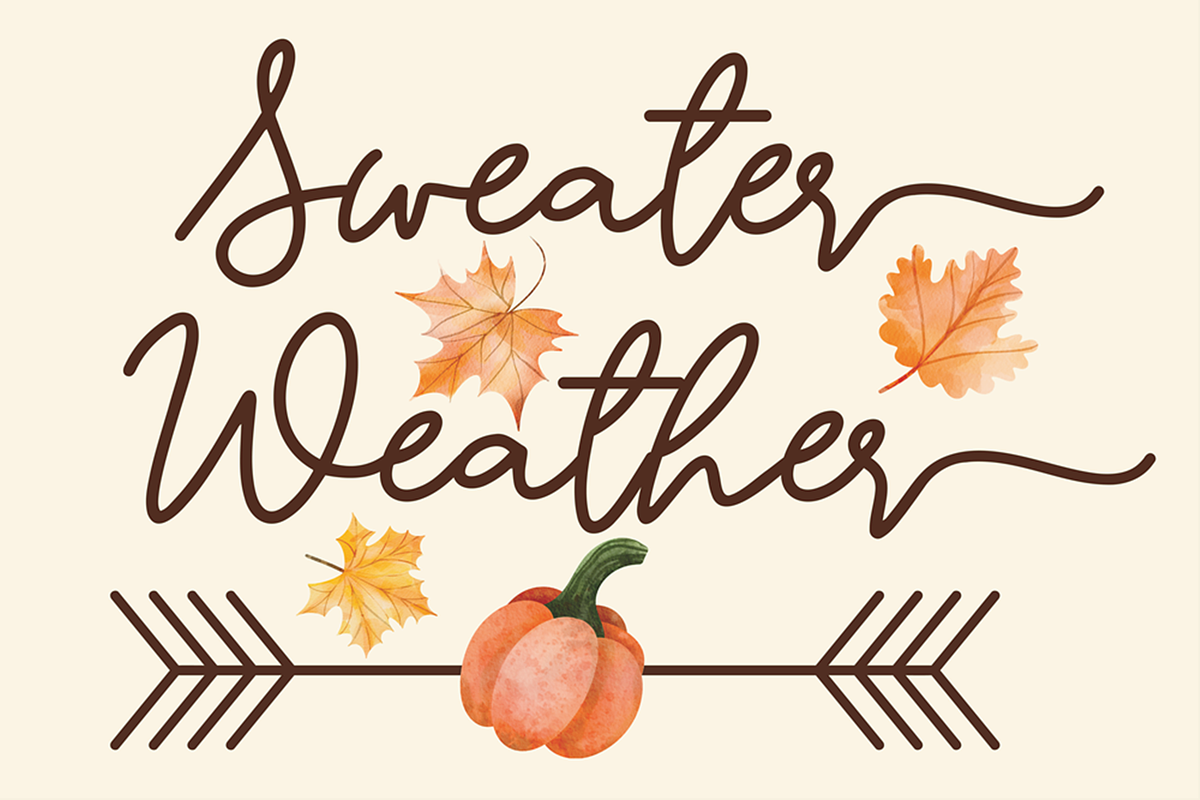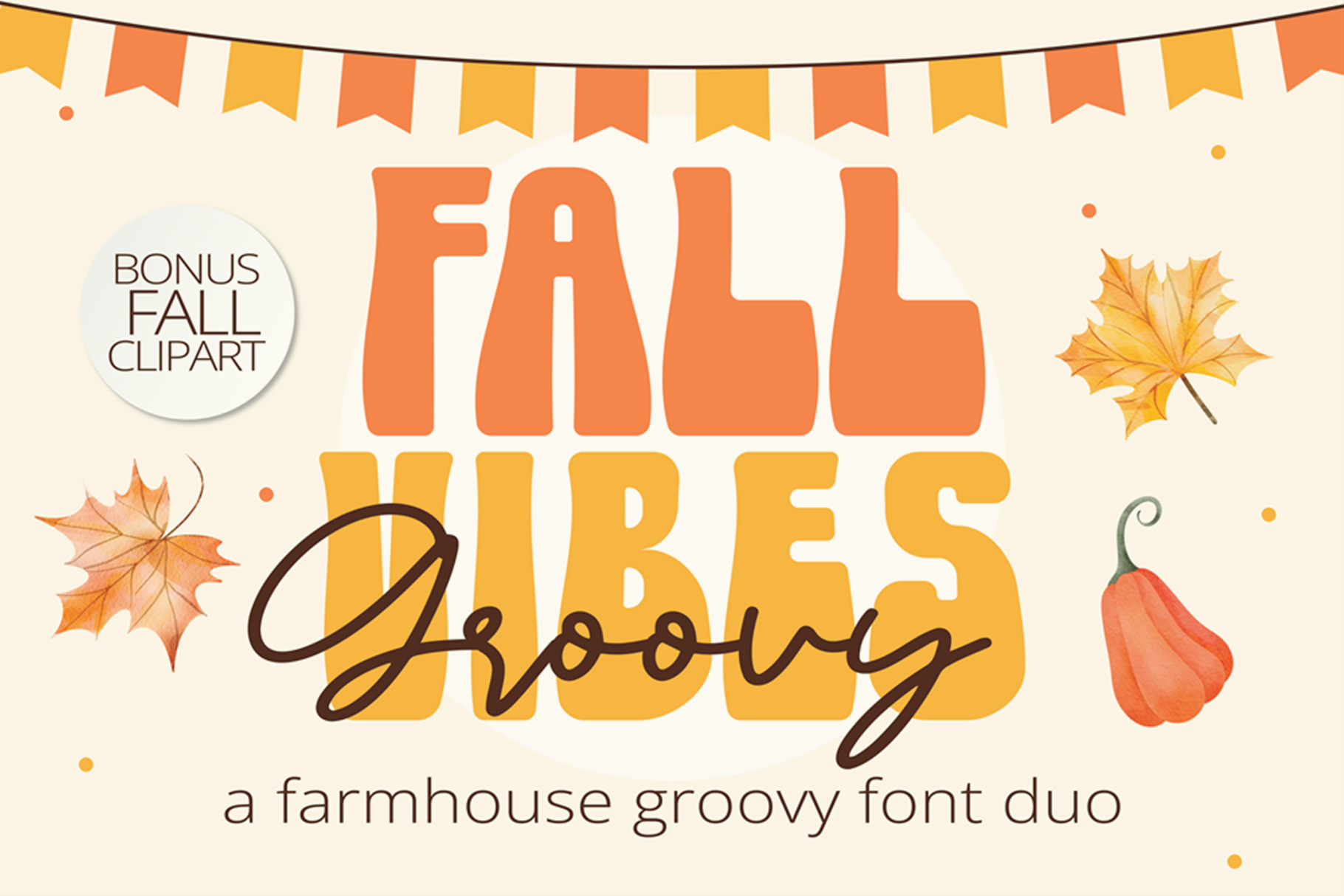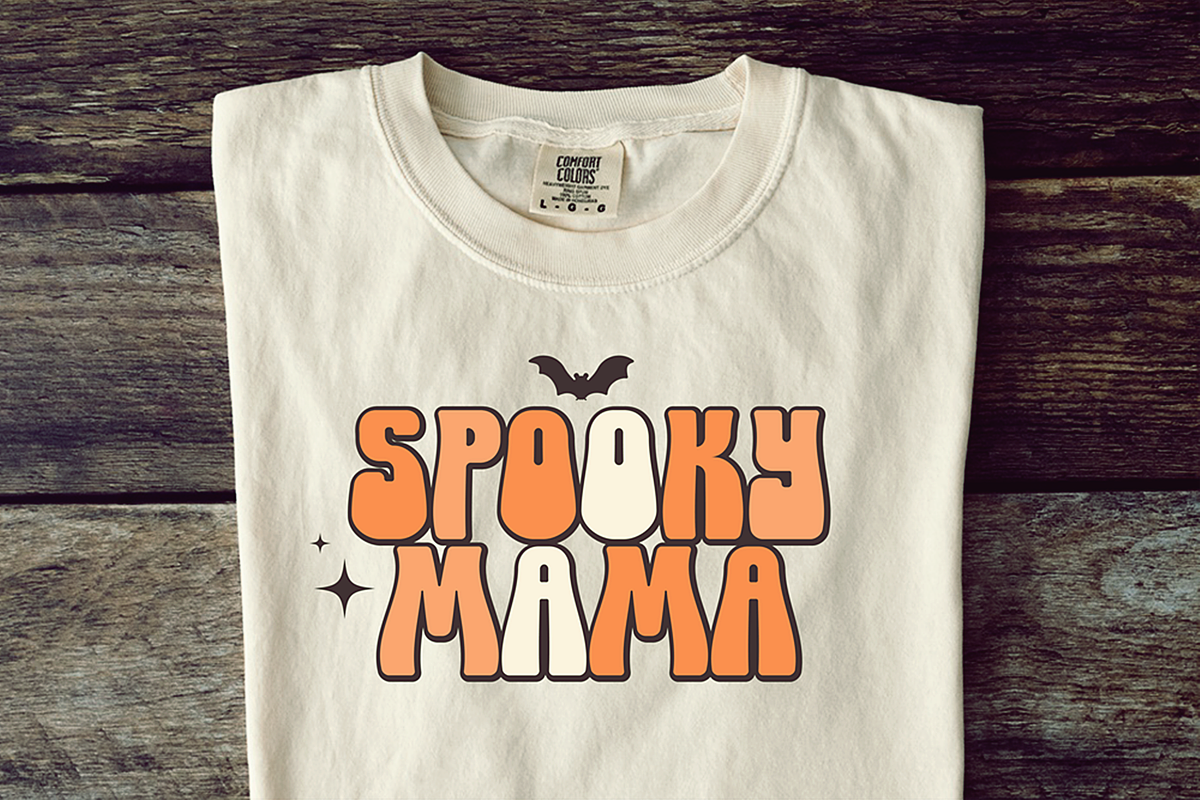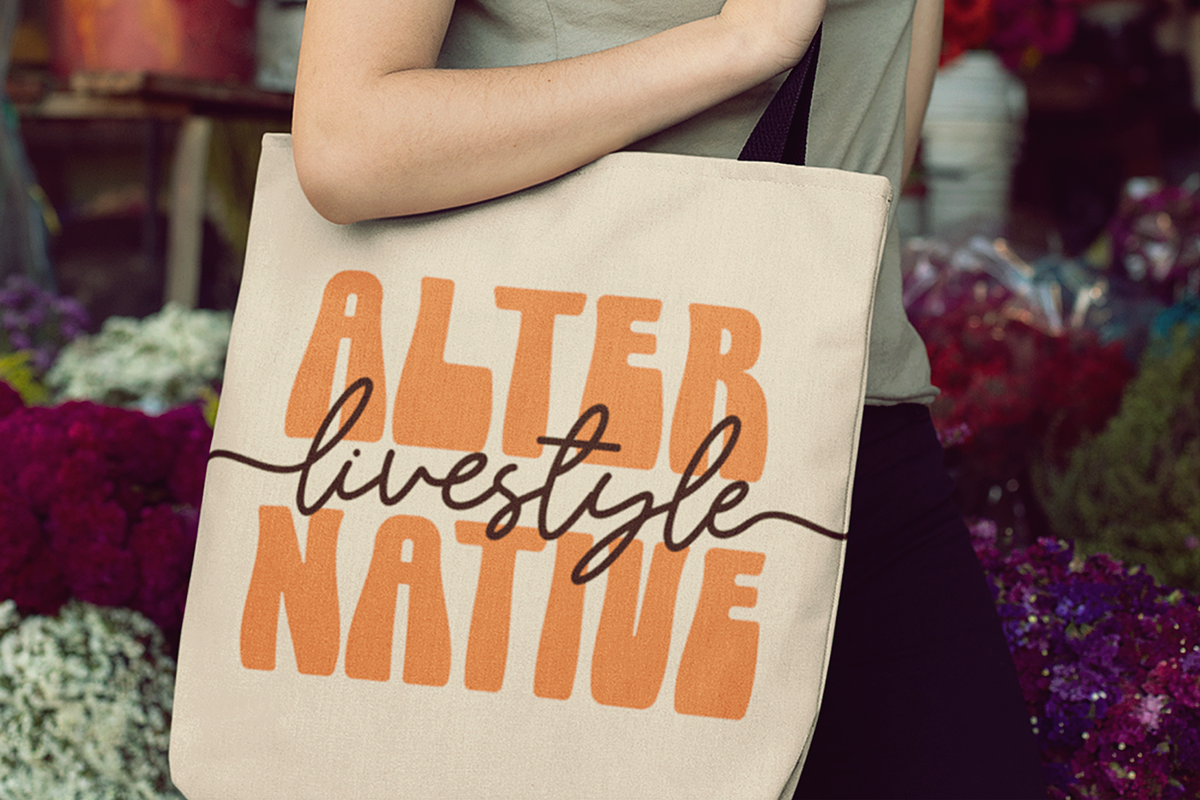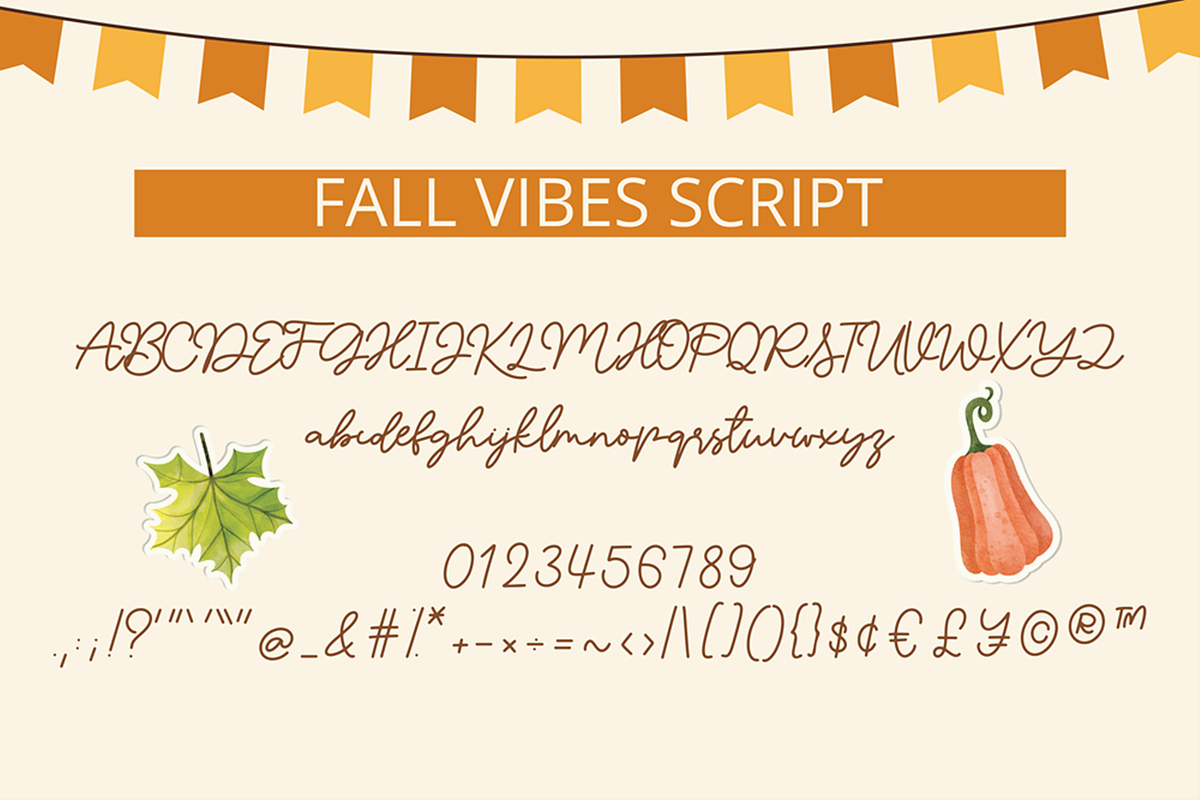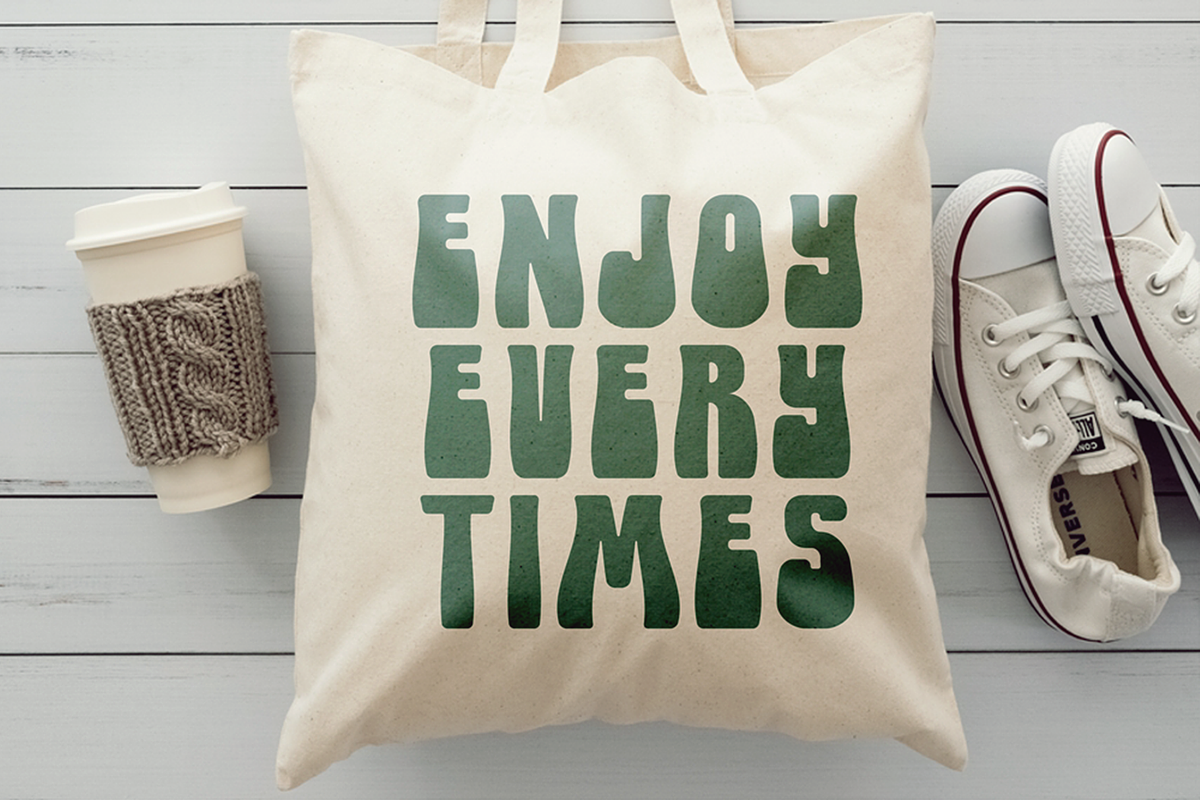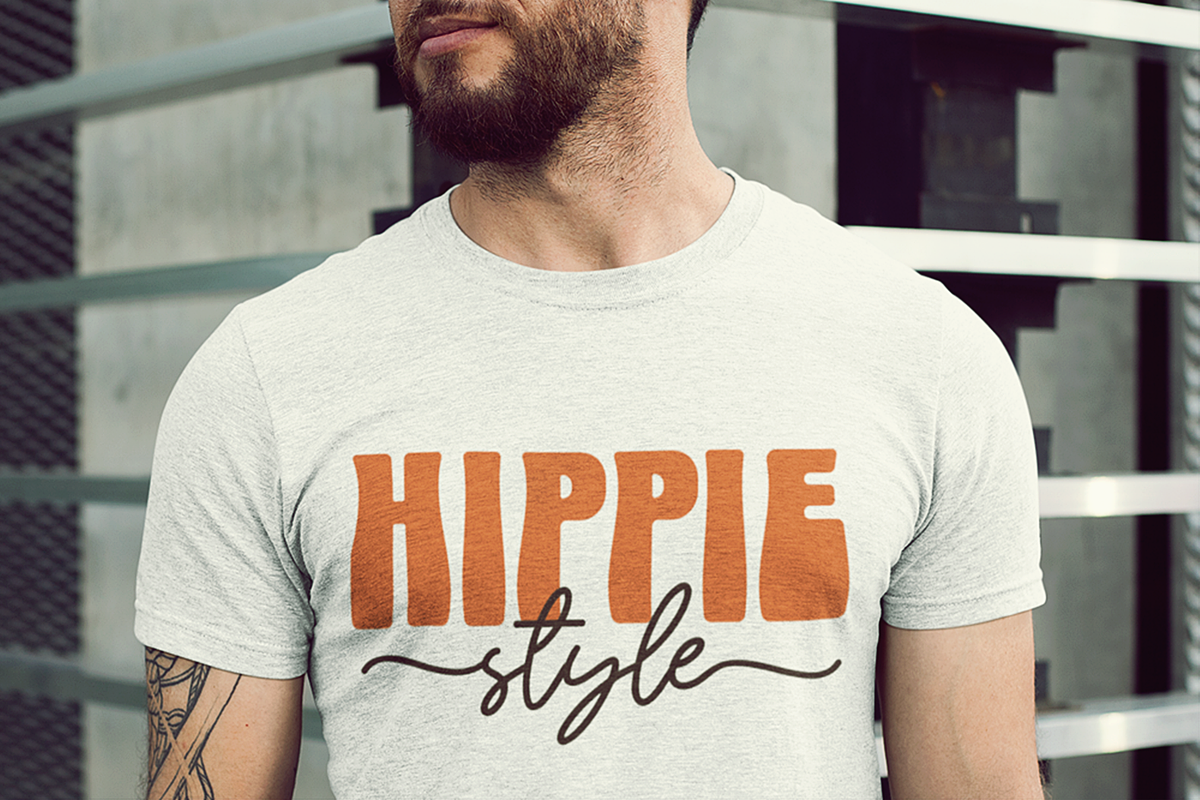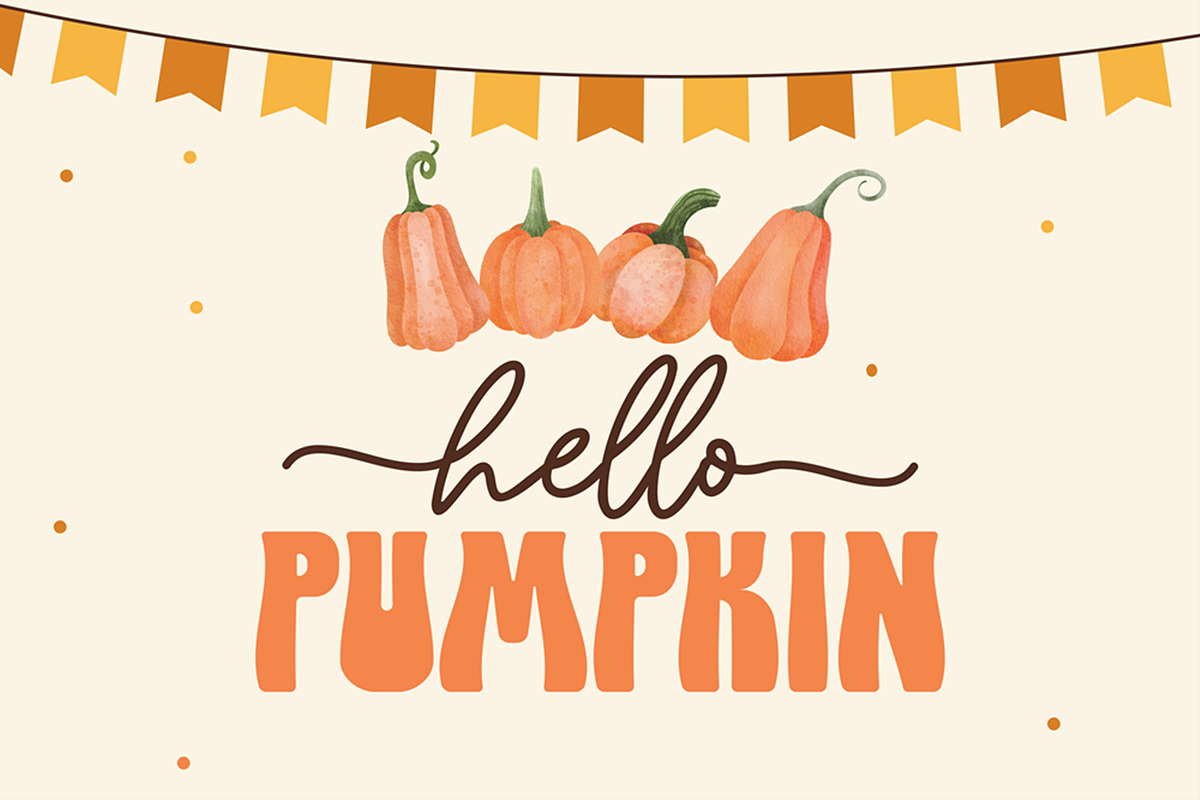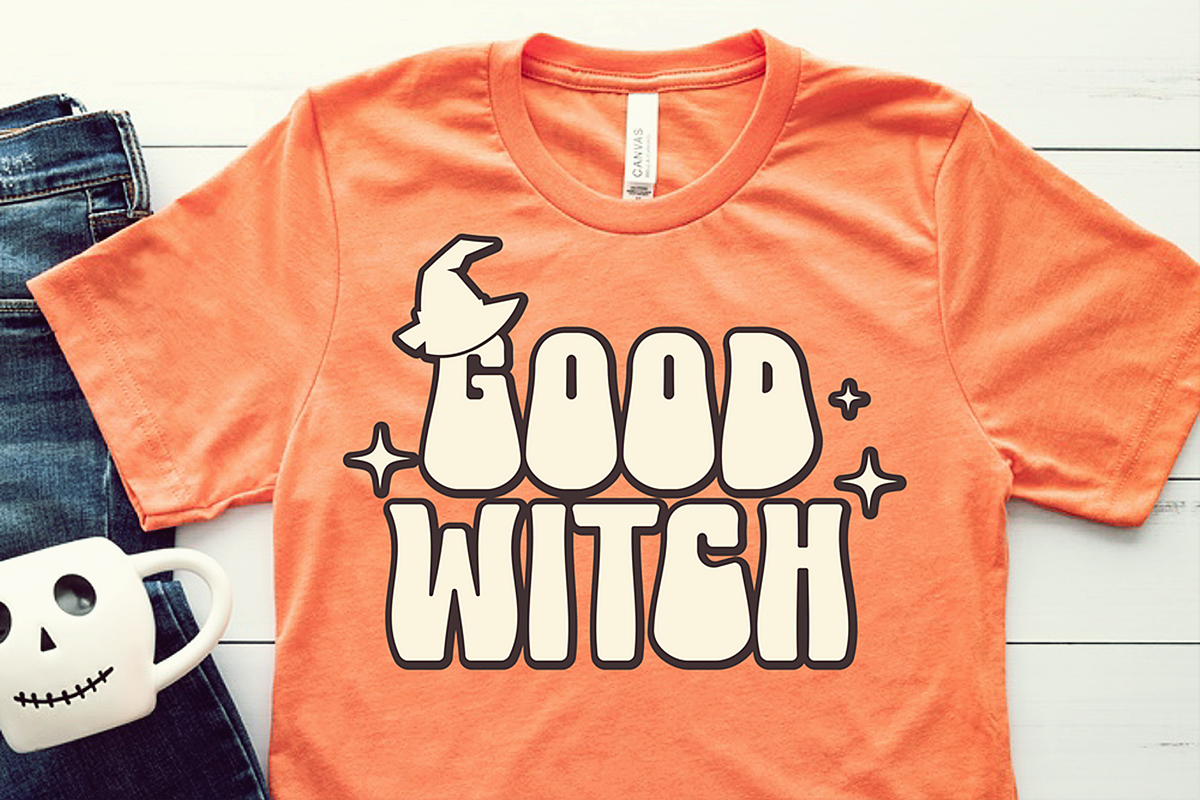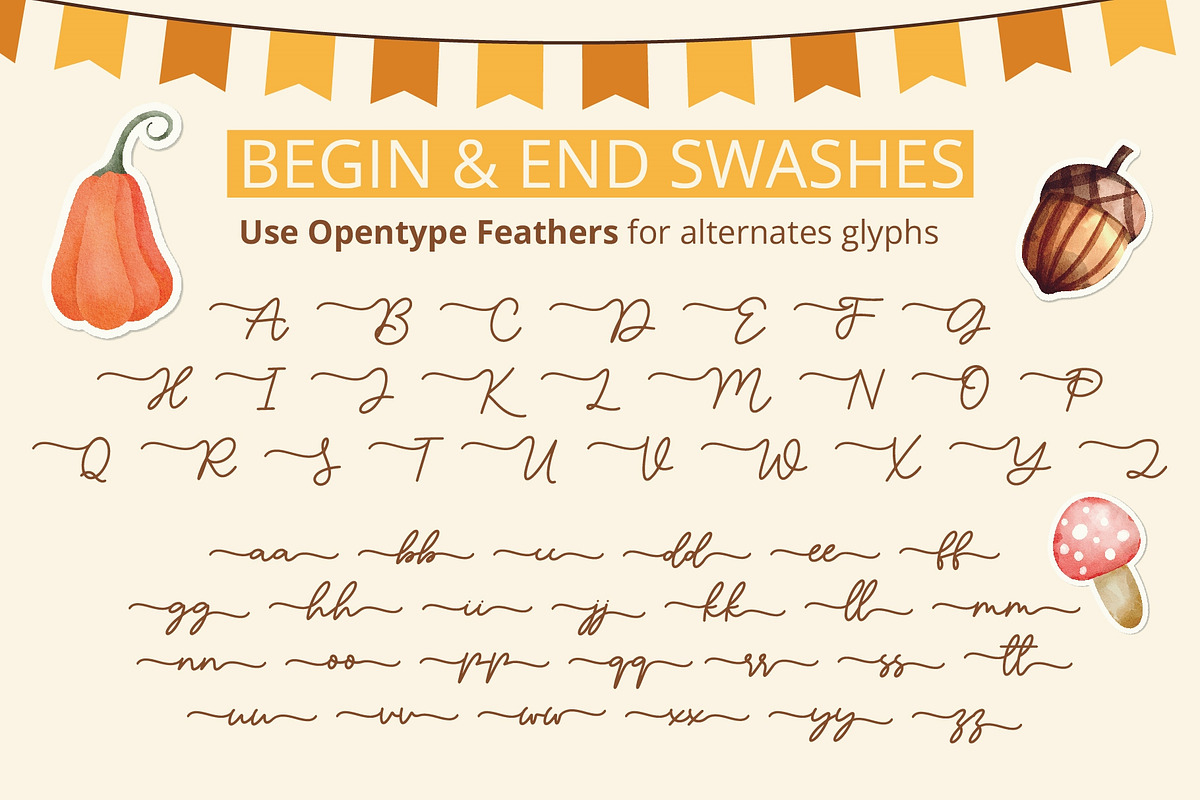
Fall Vibes Groovy - A Retro Font duo
Fall Vibes Groovy is a cool retro duo font (display and monoline script). It is perfect for any hippie design that requires a groovy look and it’s guaranteed to make an impact.